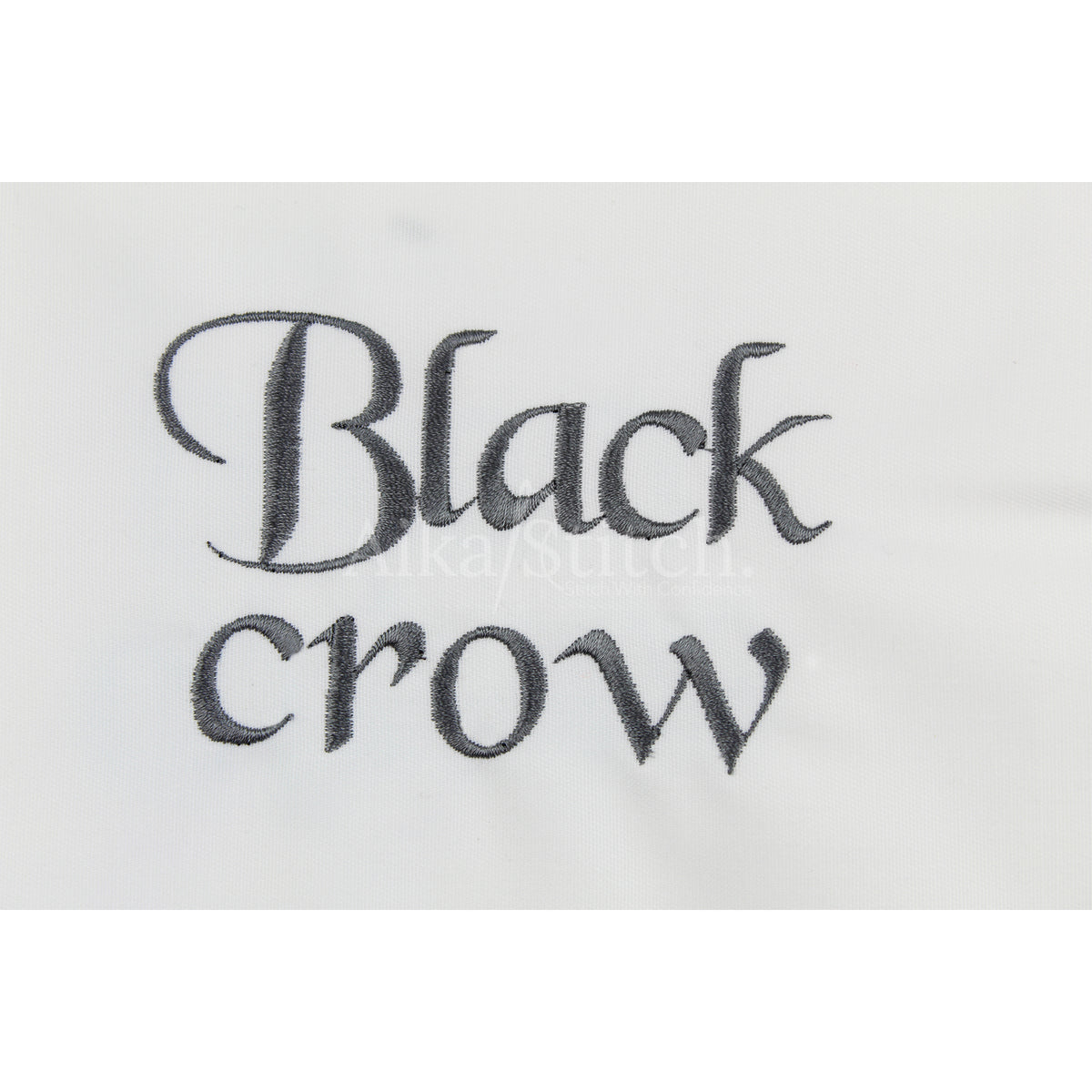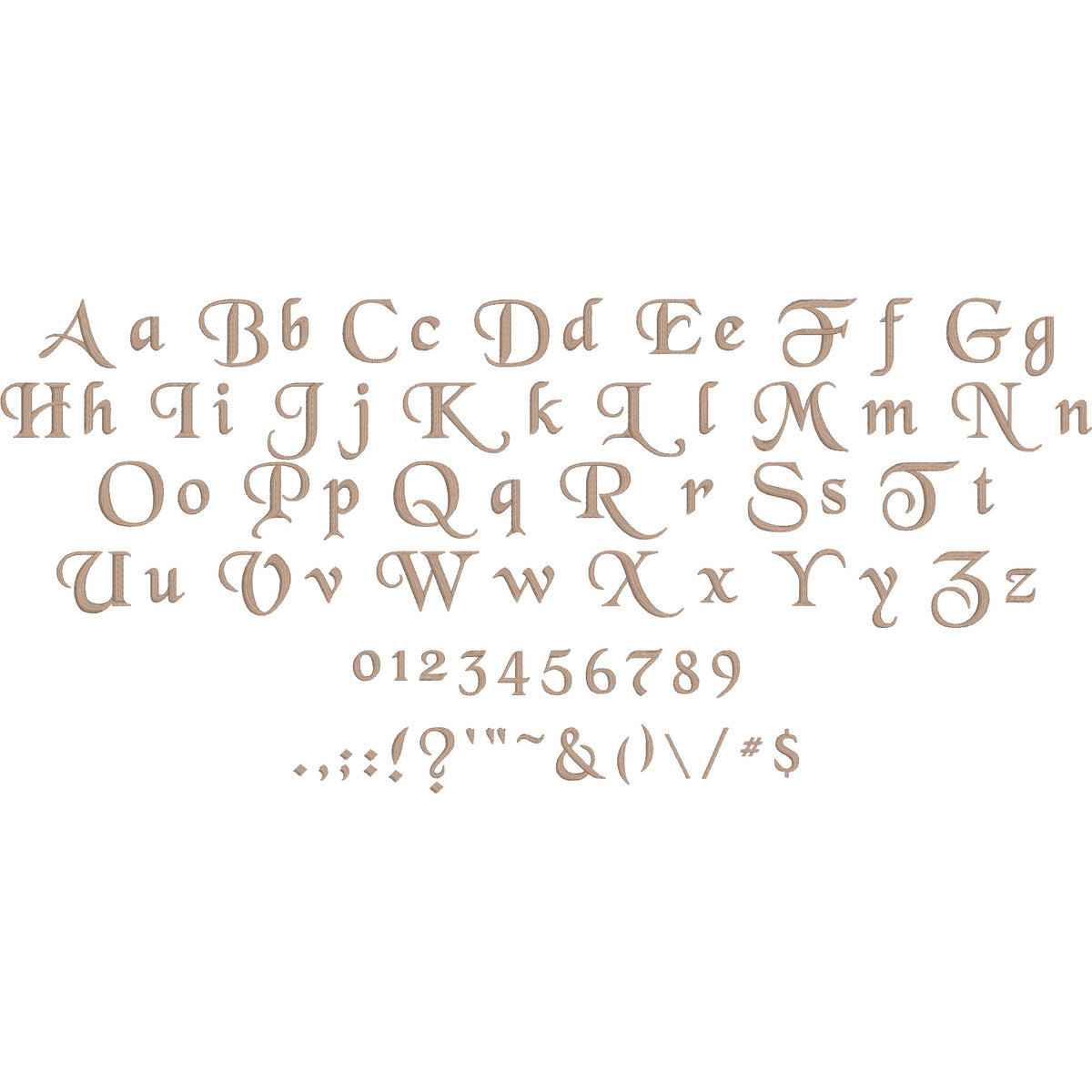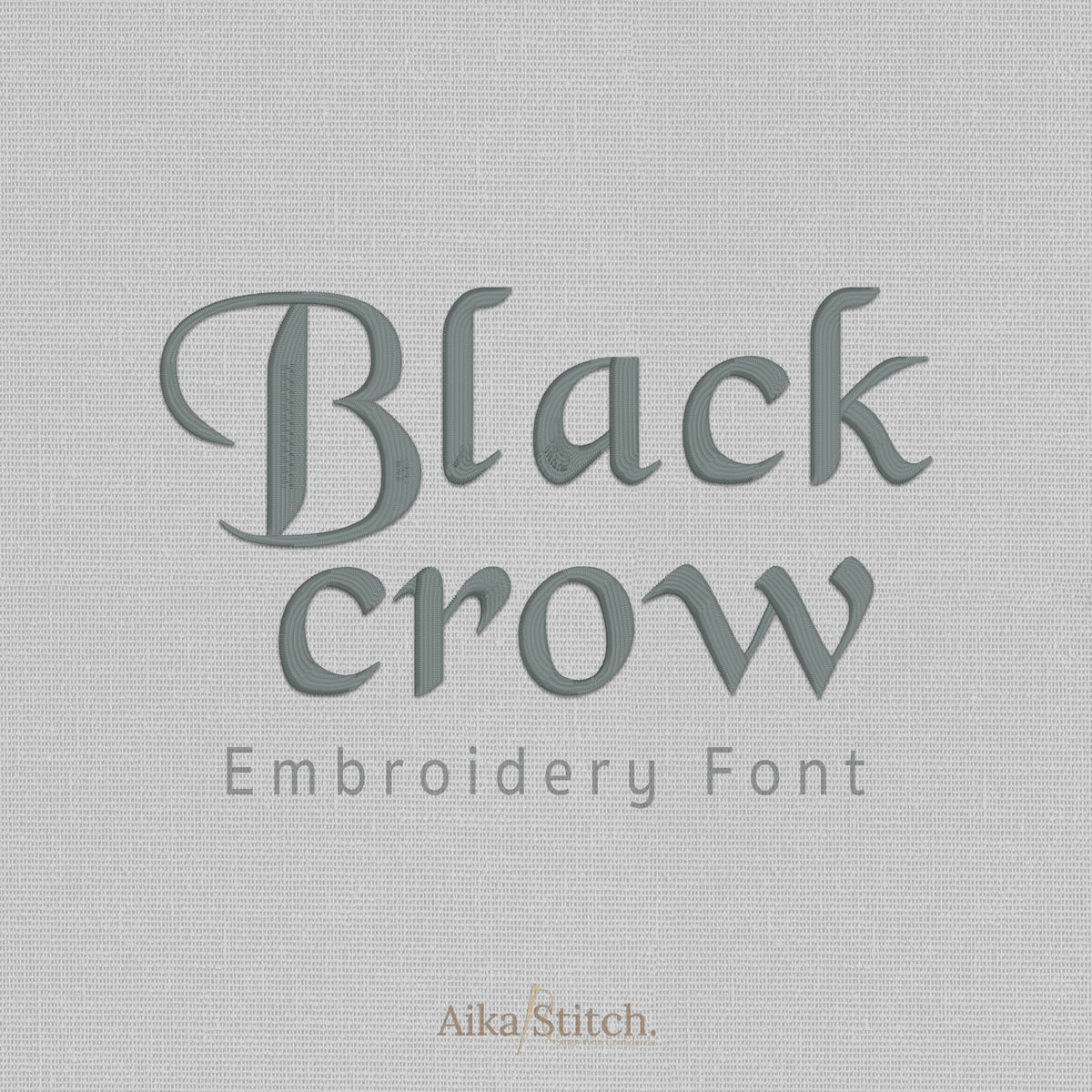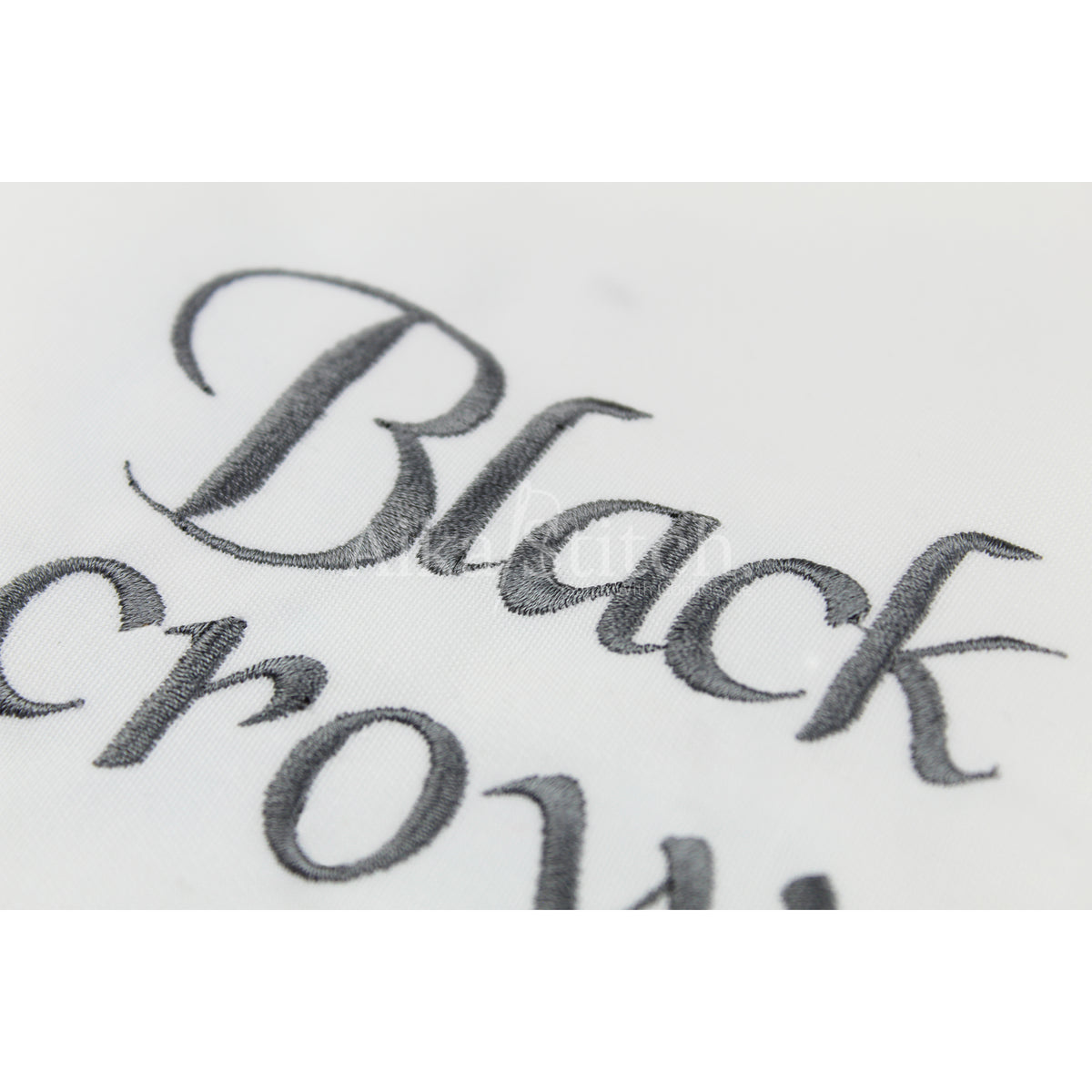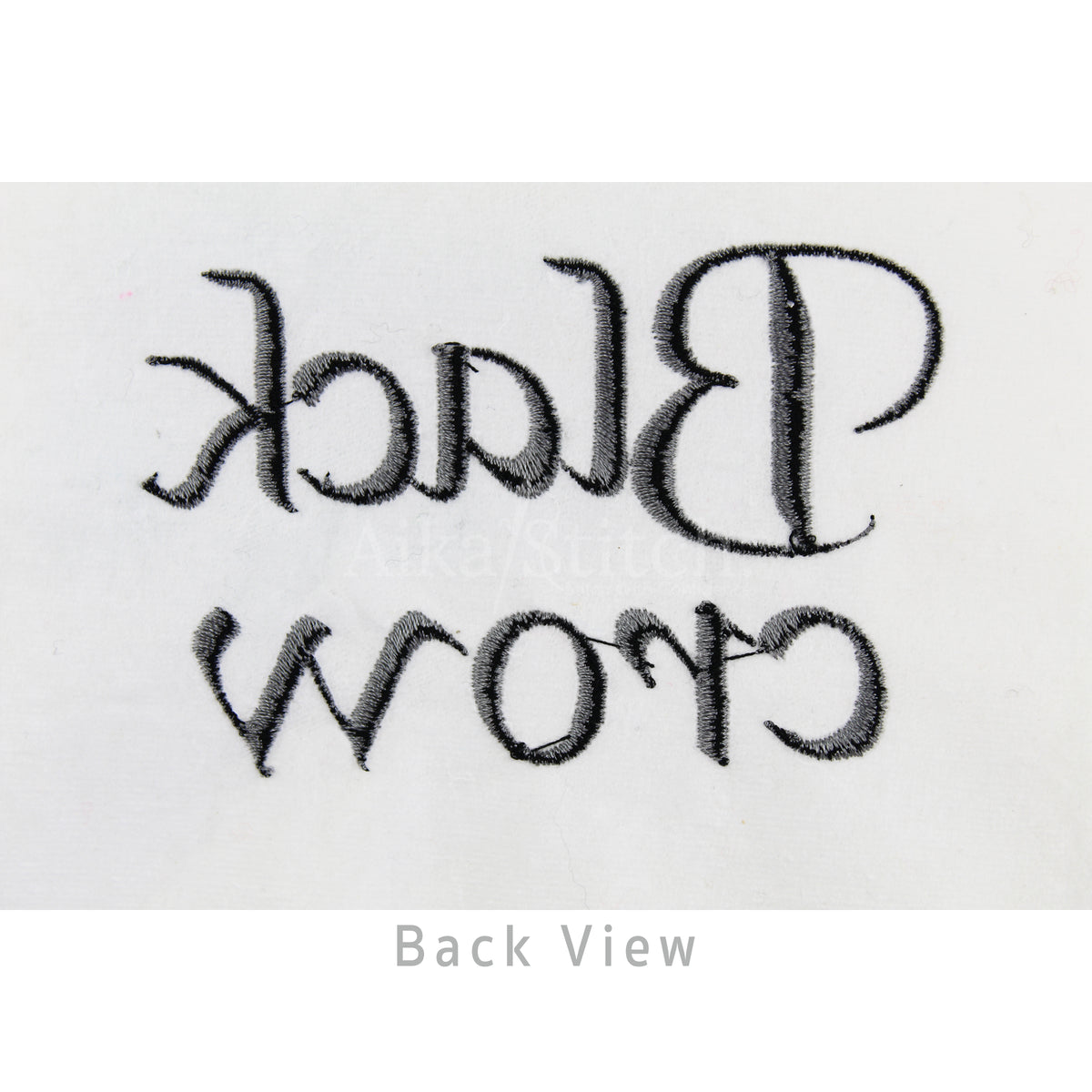
Black Crow Gothic Vintage Embroidery Font
Black Crow is a Gothic Vintage machine embroidery font featuring beautiful satin stitch lettering. Perfect for shirts, towels, hats, baby gifts, monograms, and small business embroidery projects.